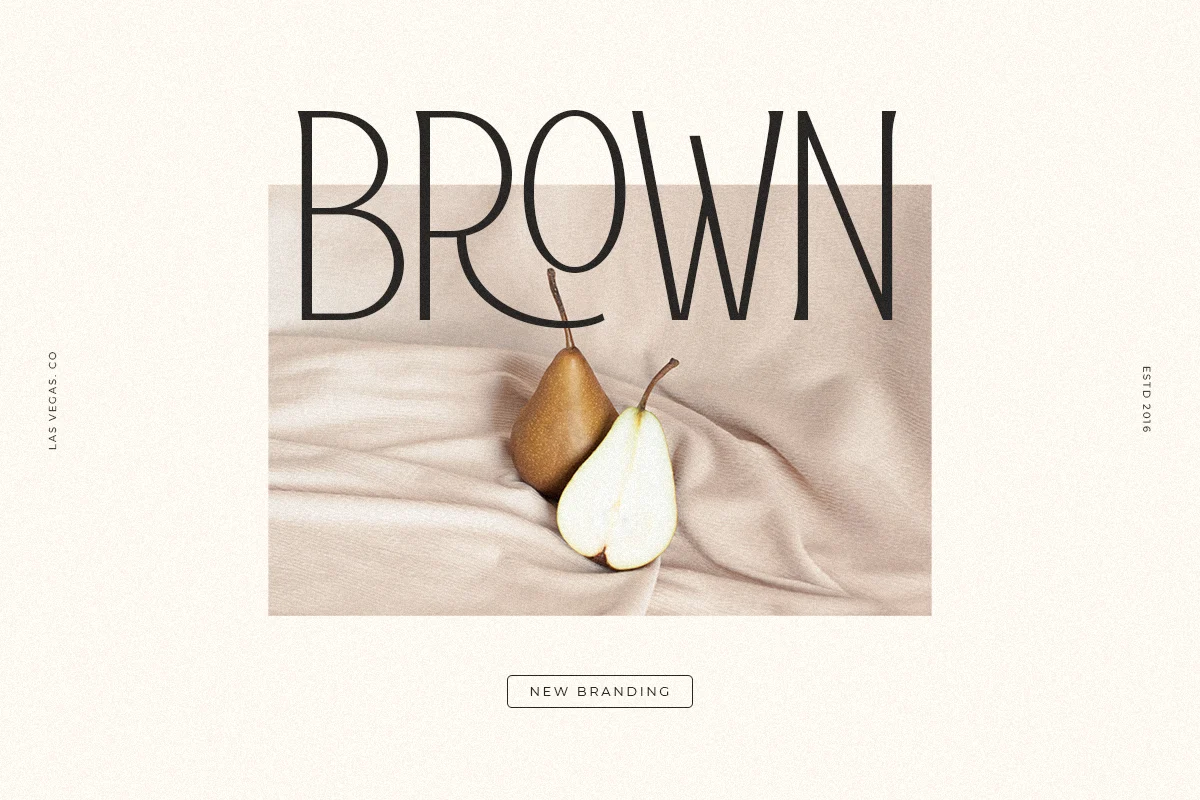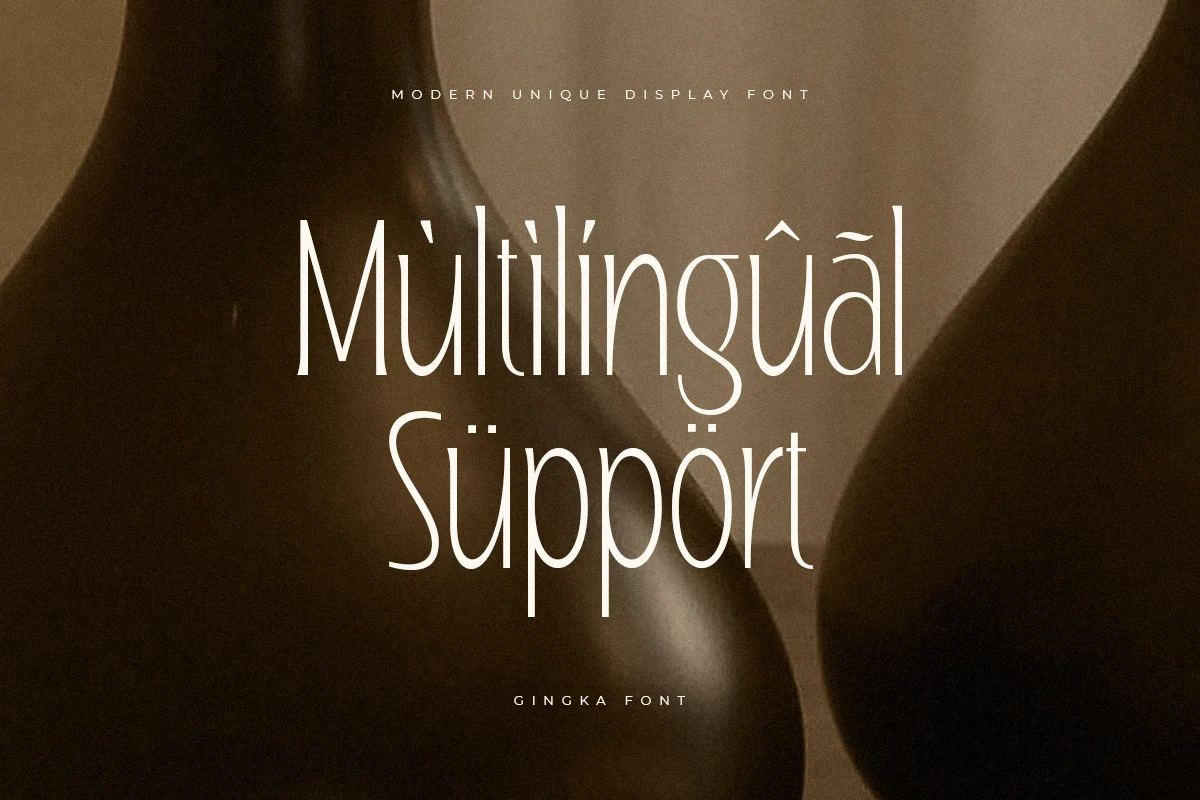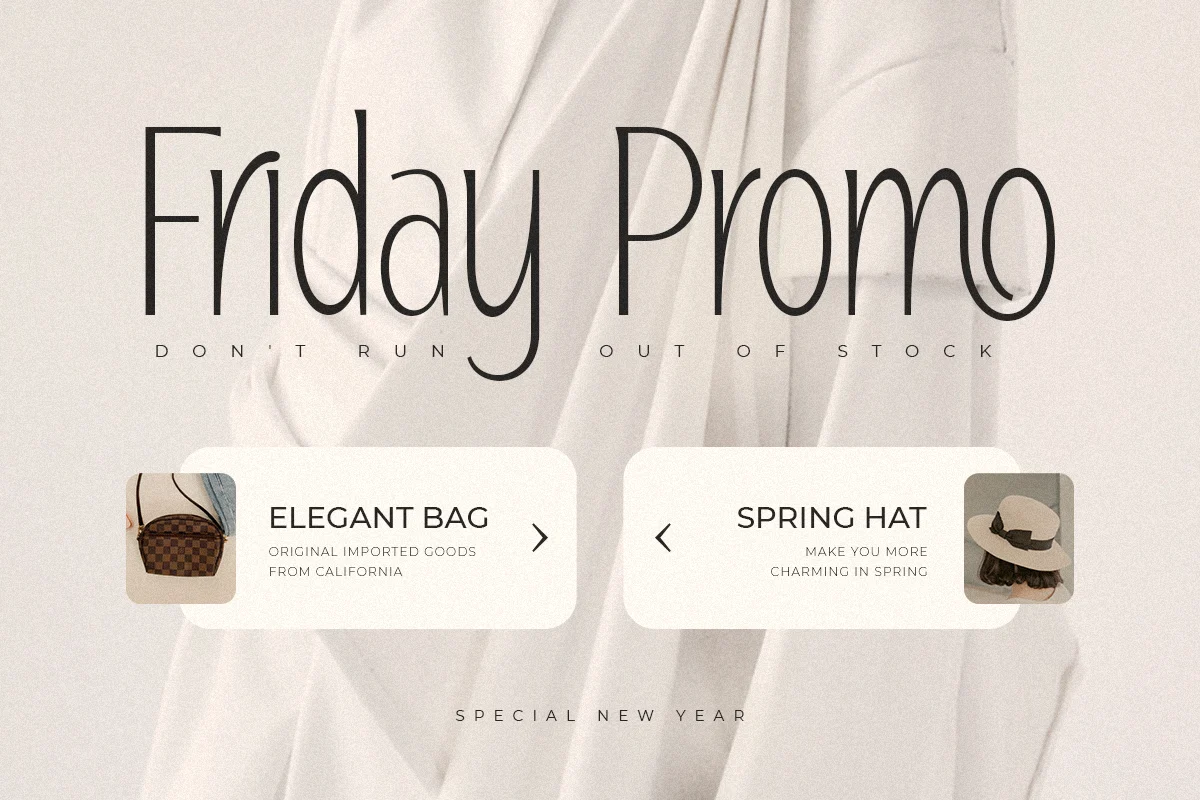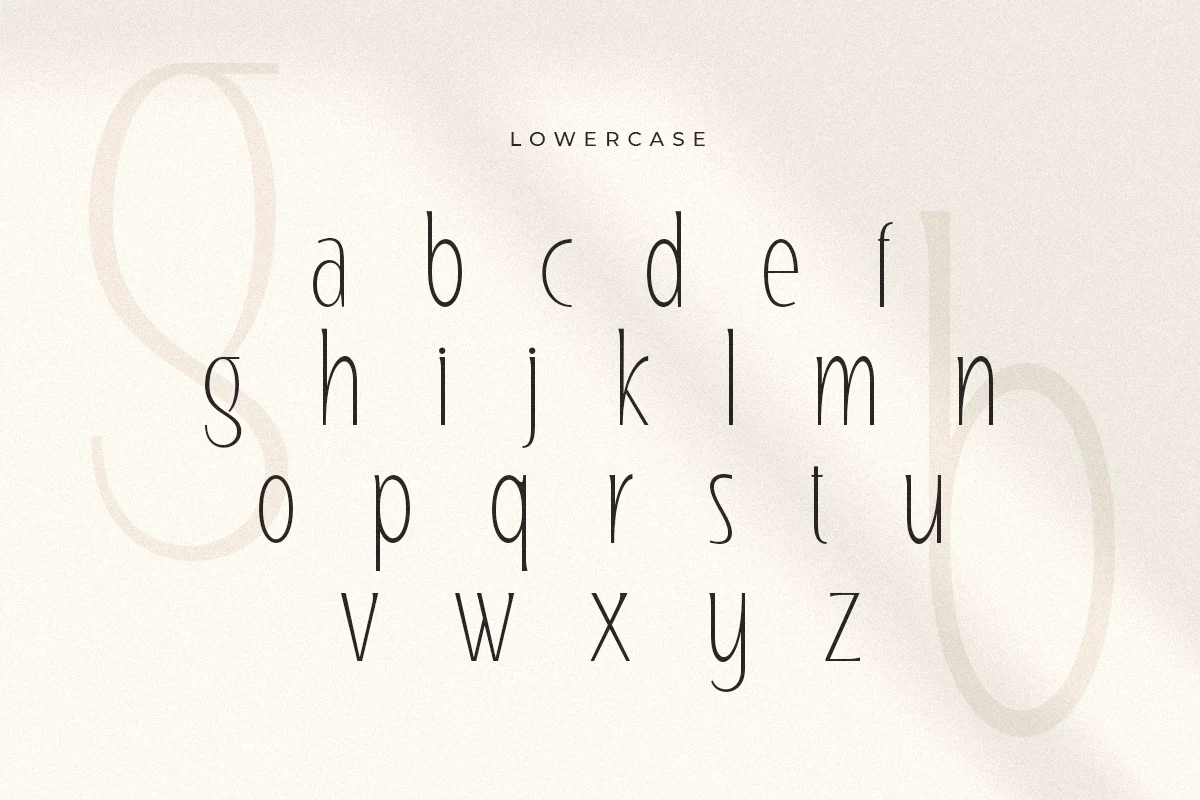
Gingka – Condensed Fashion Modern Font
A Fashion Modern serif font that we created special for elegant branding needs, with extra alternates in unique shape will be ready to add value of your brand. It so nice to leverage designer or product owner that need solutions to make their design look more classy and modern. And specially for Gingka font, We prepared any alternate characters to help you create unlimited variations for your creative needs.
Gingka Condensed Fashion Modern Font ready with:
- Any options to get creative variations (combination of Alternate characters)
- Preview as a inspirations that you can do with Gingka font
- Ready with Lowercase and Uppercase characters